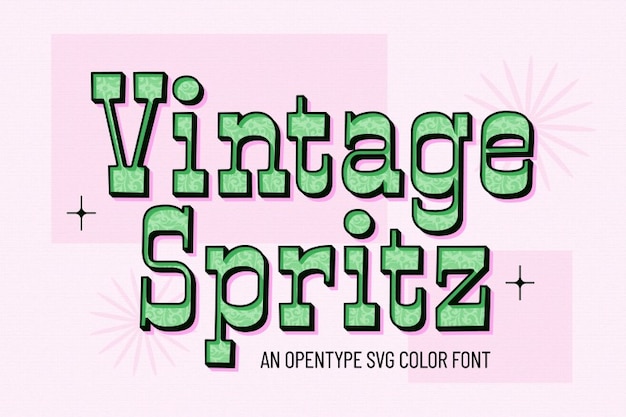
Vintage Spritz Font
Vintage Spritz is a bold, retro typeface with a thicker stem structure that commands attention while maintaining a classic vintage charm. Its strong, well-defined letterforms evoke mid-century signage and timeless typography, perfect for branding, posters, and nostalgic designs. With a balance of elegance and authority, Vintage Spritz brings a refined, old-school edge to any project.